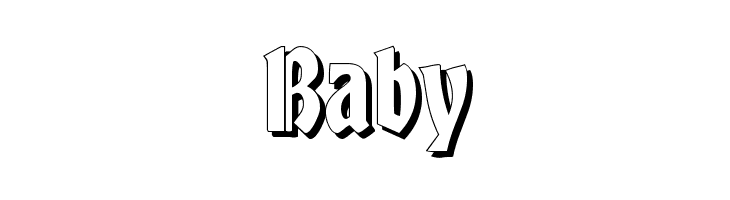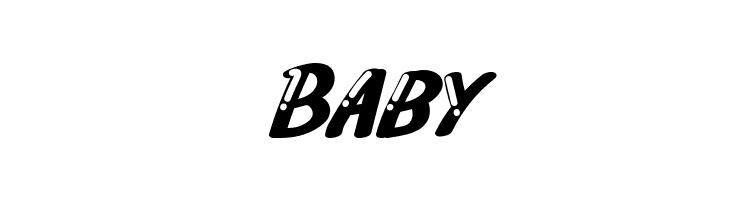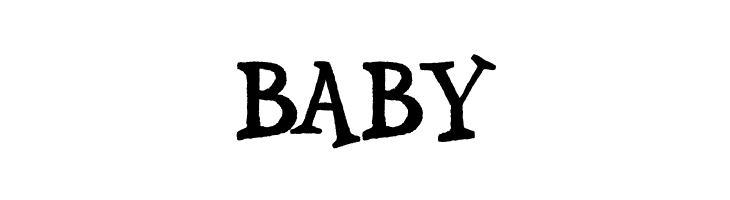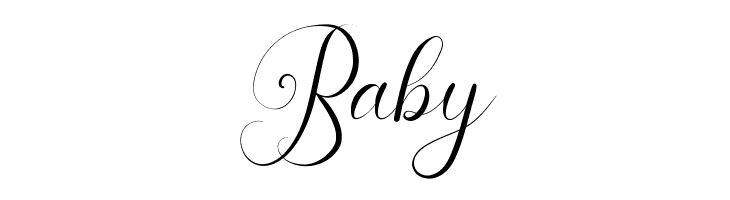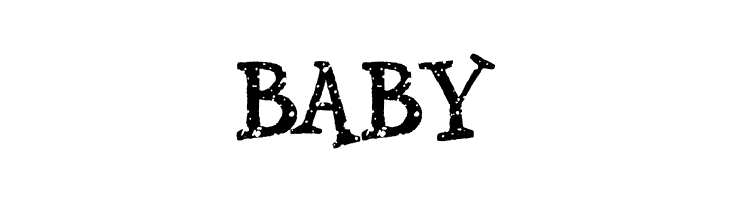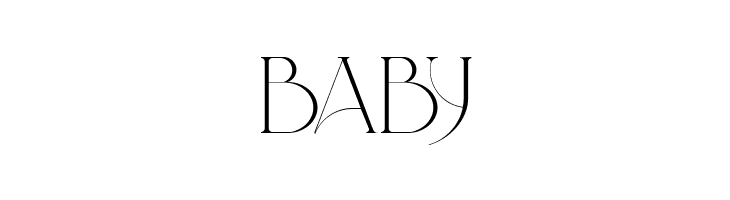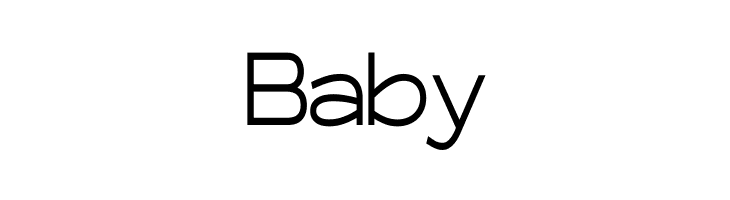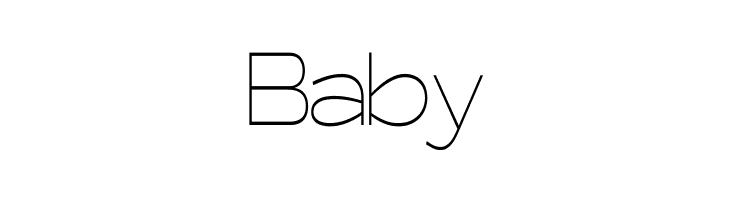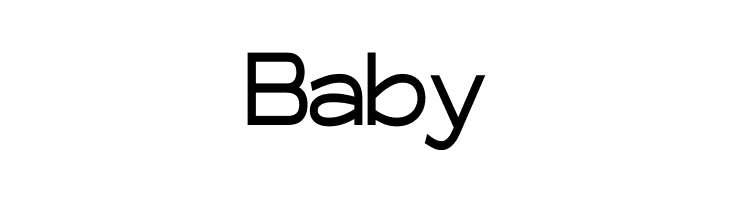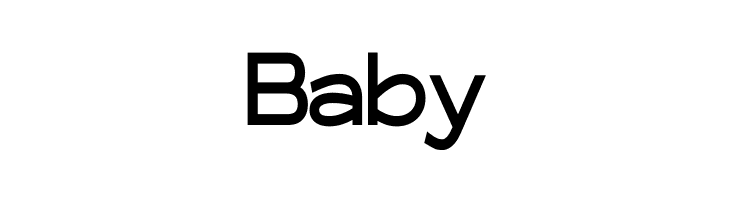
A bold, shadowed font with a three-dimensional effect, perfect for striking designs.
An artistic and elegant font with modern flair and dynamic character shapes.
A bold, dripping font with a playful, spooky aesthetic.
A playful, dripping font with a bold, cartoonish style.
A playful, bold font with thick, rounded, hand-drawn characters.
A bold, decorative font with a vintage marquee light bulb effect.
A bold, playful font with rounded edges and a bubbly, whimsical style.
A playful, hand-drawn font with tall, narrow letters and a whimsical style.
A distressed, textured font with a grunge-like aesthetic, ideal for edgy designs.
A playful, hand-drawn font with wavy lines and a spooky aesthetic.
A bold, brush-style font with dynamic, edgy strokes.
A bold, dynamic brush script font with energetic strokes and expressive forms.
A playful, dripping font with a spooky, liquid-like appearance.
A bold, modern sans-serif font with clean lines and geometric shapes.
A bold, modern sans-serif font with clean lines and geometric structure.
A sleek, modern font with thin, elongated characters and a minimalist aesthetic.
A modern, geometric sans-serif font with a clean and balanced design.
A sleek, modern font with clean lines and geometric structure.
A modern sans-serif font with a semi-bold weight and clean, balanced design.
A playful, bold font with rounded, bubble-like characters.
A bold, playful font with rounded, bubbly characters and a dynamic feel.
A playful, bubbly font with bold outlines and exaggerated curves.
A bold, italic outline font with a playful and dynamic style.
An elegant script font with ornate swirls and decorative flourishes.
An elegant script font with intricate swirls and decorative flourishes.
A playful, decorative font with bold, rounded characters and whimsical flair.
An elegant script font with intricate swashes and a calligraphic style.
A playful, casual handwritten font with a fun and spontaneous style.
A bold, decorative font with a playful highlight effect.